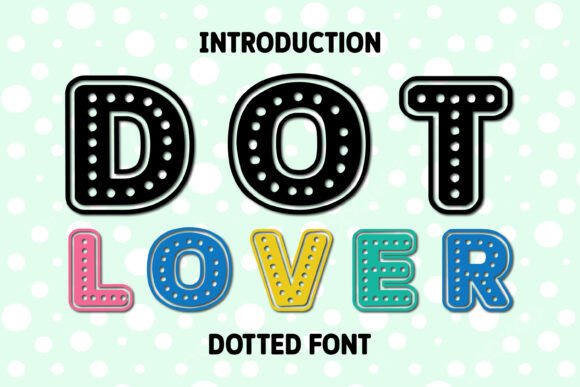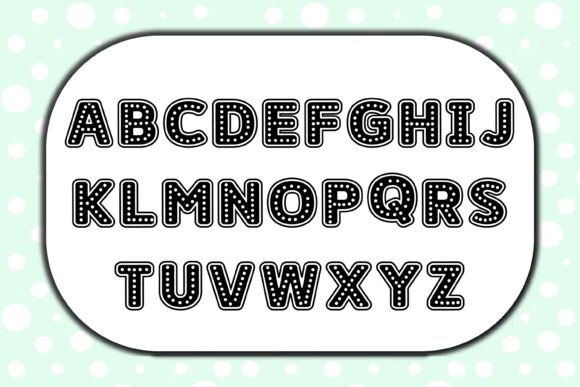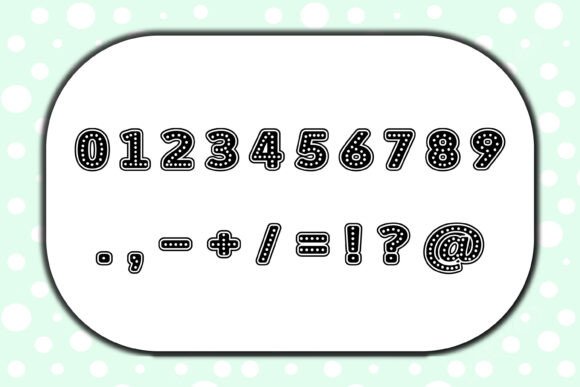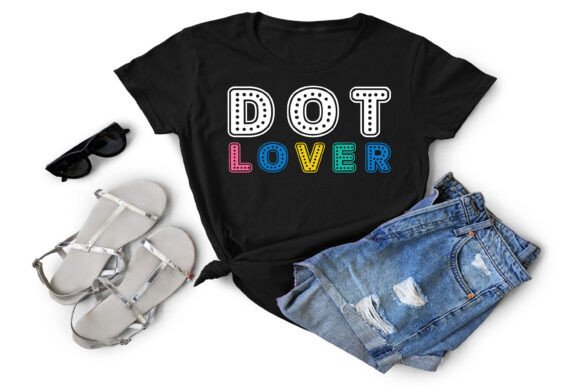
Dot Lover Font
About the Dot Lover Font
Add a touch of class to your work with the Dot Lover Font, a truly exceptional typeface. Introducing a vibrant splash to your creative projects, our color font embodies joy and whimsy that is bound to elevate your design endeavors. An absolute fit for branding initiatives, packaging designs, riveting logotypes, and gripping headlines, it also adds a sprinkle of charm to wedding invitations and similar creatives. Embrace and experience the transformative power of this uplifting font in your designs.
Dot Lover Font’s playful, yet slightly quirky personality makes it ideal for projects requiring a vibrant and memorable impact. It excels in headlines, short text blocks, logos, and packaging where its unique character shines. However, its distinctive forms are less suitable for body text or lengthy paragraphs, potentially hindering readability.
Consider pairing Dot Lover with a clean sans-serif like Open Sans for a balanced contrast, or a classic serif such as Garamond for a more sophisticated feel. For a bolder statement, a geometric sans-serif could create a striking combination. Avoid pairing it with other highly decorative fonts to prevent visual clutter.
Ultimately, Dot Lover is best suited for brands targeting younger demographics or projects with a fun, energetic vibe – think children’s products, playful lifestyle brands, or events emphasizing joy and creativity.
Dot Lover Font Usage Examples
Dot Lover Font Example